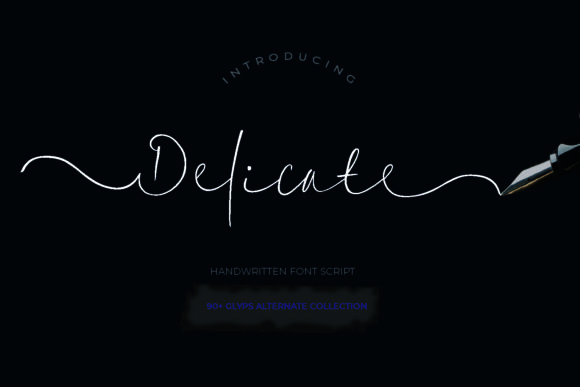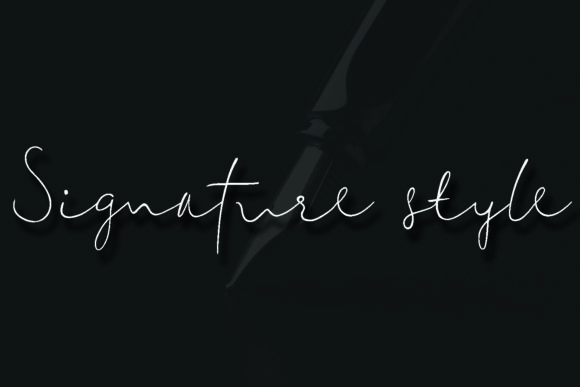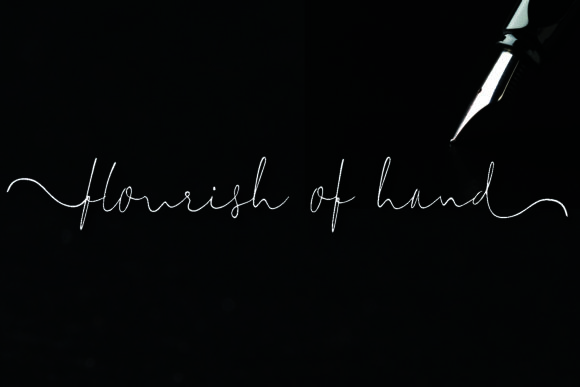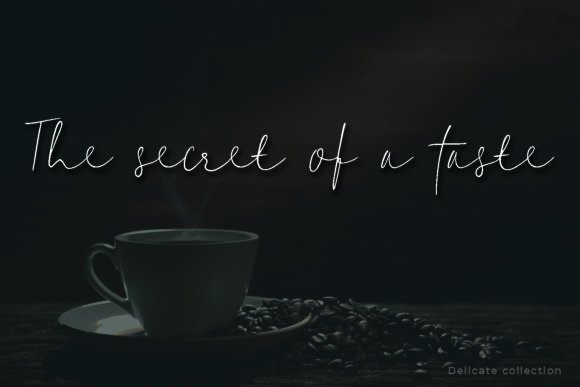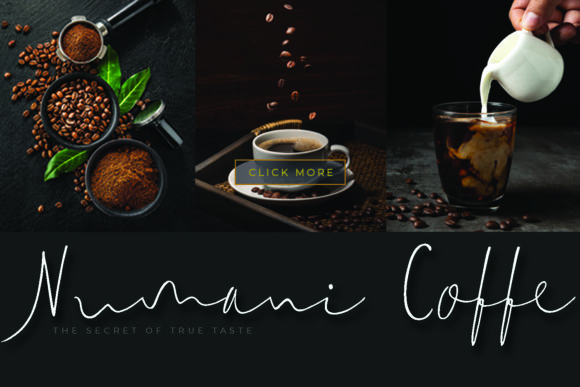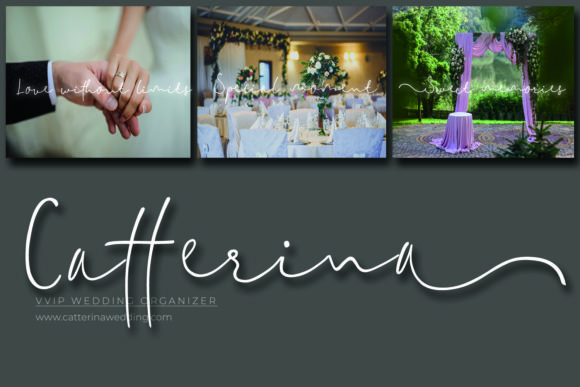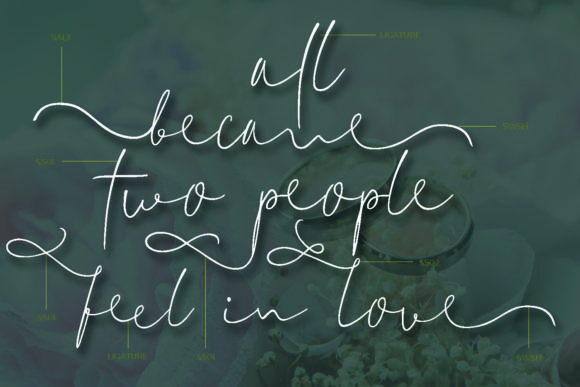
You know that moment when you’re brainstorming ideas for your next crafty project, and suddenly, everything clicks into place? The font, the colors, the layout – it all comes together in perfect harmony. For designers, finding that perfect font can be the difference between a good project and a great one. That’s where Delicate Font comes in – a beautiful script font that effortlessly blends classic calligraphic influences with modern flair.
Delicate Font is more than just a pretty face; it’s a versatile tool that can elevate your designs from simple to stunning. Whether you’re creating letterheads, titles, or stationery, this font is sure to impress. Its delicate touch will add a level of sophistication to your work, making it perfect for designers who want to stand out from the crowd.
Delicate Font Key Features
- Unique Characteristics: This font features a delicate, cursive script with elegant flourishes, making it perfect for creating beautiful and sophisticated designs.
Delicate Font Review
Overall, I’m quite fond of the Delicate Font. It has a unique aesthetic that’s both elegant and playful at the same time. ✨ One of the things I appreciate most about this font is its versatility – it works well in a variety of contexts, from body text to headings. The subtle flair at the end of each letter adds a touch of whimsy that can elevate even the most mundane content.
Another strength of the Delicate Font is its legibility. It’s easy to read, even at smaller font sizes, making it a great choice for digital content. ✨ The font also comes in a range of weights, from light to bold, which allows for a lot of flexibility in terms of visual hierarchy.
- ⚠️ The Delicate Font may not be the best choice for highly technical or scientific content, as the irregularities in the letterforms can make it difficult to read in certain contexts.
- ⚠️ The font may also be too delicate (no pun intended) for certain types of content, such as headlines or titles that need to stand out.
Overall, I think the Delicate Font is a great choice for designers looking to add some visual interest to their projects without sacrificing readability. With its unique aesthetic and versatility, it’s definitely worth considering for a wide range of applications.
For best results, use the Delicate Font for headings and titles to add a touch of elegance to your design.
Use the Delicate Font for labels, headings, and other text elements to add a touch of sophistication to your design.
Use the Delicate Font for titles, headings, and other text elements to add a touch of elegance to your presentation or document.
Use the Delicate Font for:
– Baby shower and birthday invitations
– Luxury brand logos and packaging
Remember to pair the Delicate Font with a clear and simple design to avoid overwhelming the text.
Alternatives to Delicate Font for Designers
Lato is a modern sans-serif font that is highly legible and elegant. It’s perfect for use in body text, headings, and titles where a delicate yet strong feel is required. Compared to Delicate Font, Lato has a more geometric and clean appearance, making it suitable for a wide range of design applications.
Merriweather is a classic serif font that exudes a sense of sophistication and elegance. It’s ideal for use in print materials, such as business cards, brochures, and magazines, where a refined and delicate look is desired. Compared to Delicate Font, Merriweather has a more traditional and timeless feel, making it suitable for formal and professional designs.
Playfair Display is a luxurious serif font that adds a touch of elegance and sophistication to any design. It’s perfect for use in titles, headings, and other high-impact areas where a delicate and refined look is required. Compared to Delicate Font, Playfair Display has a more ornate and decorative appearance, making it suitable for high-end and luxury designs.